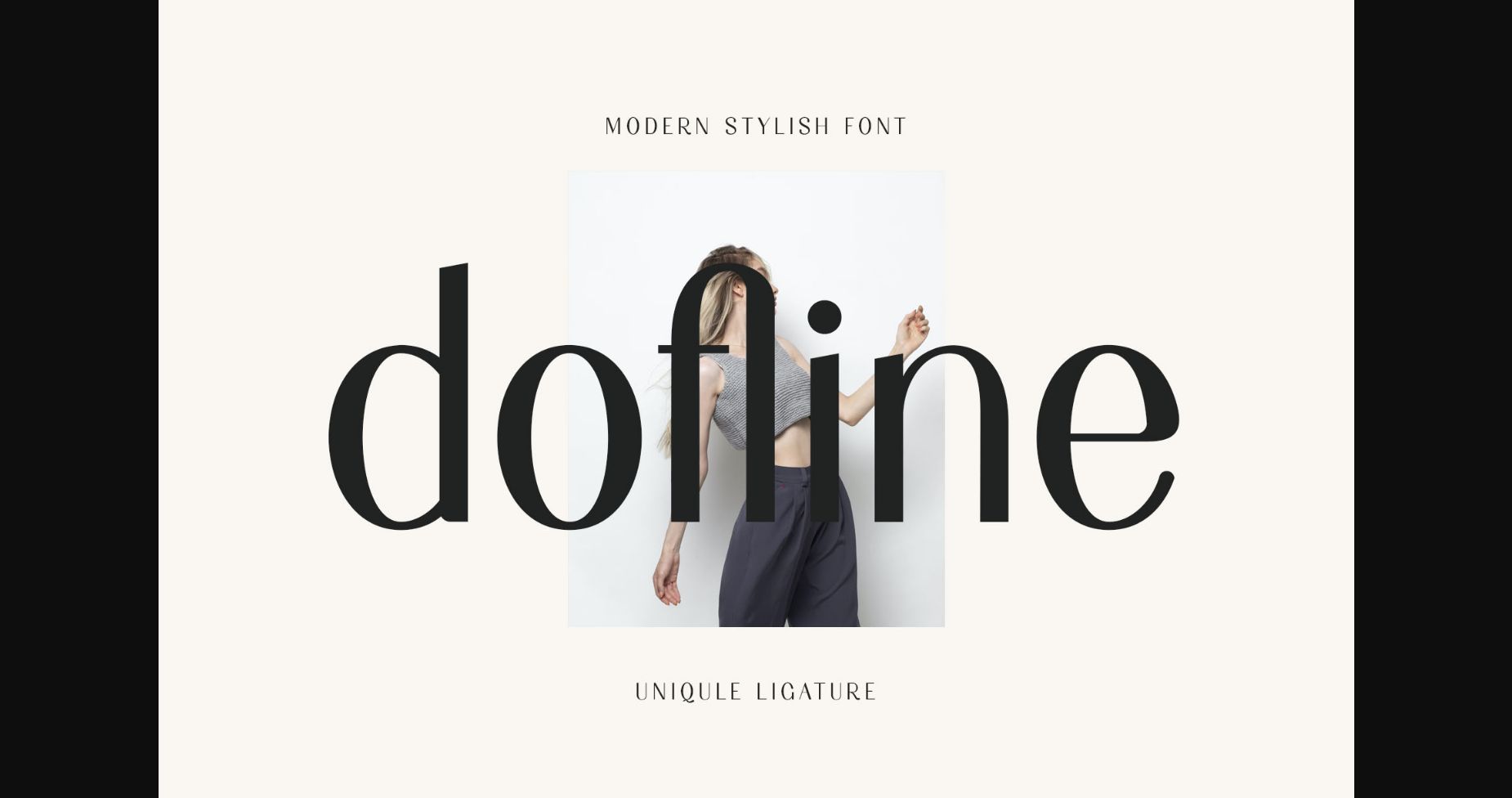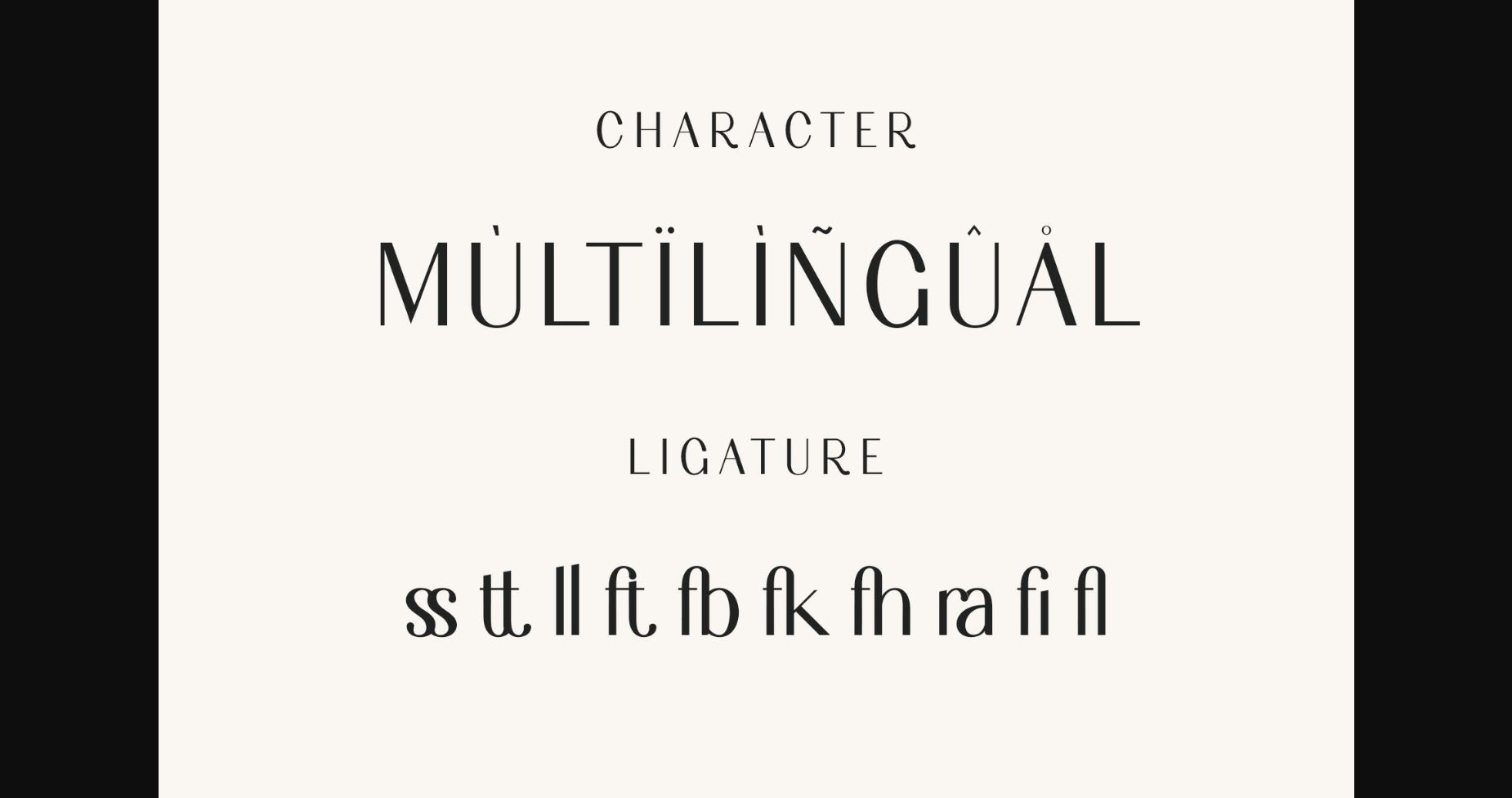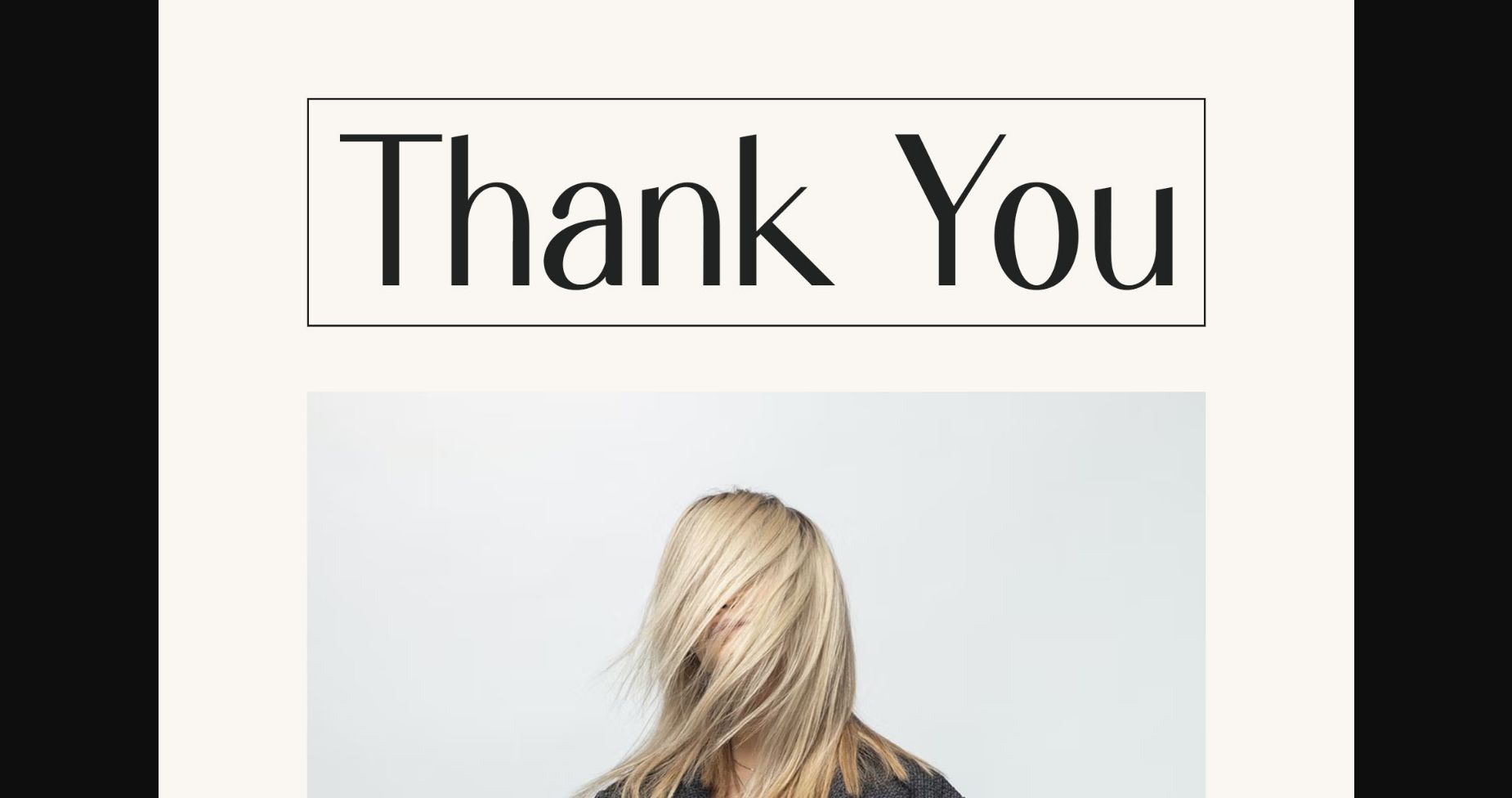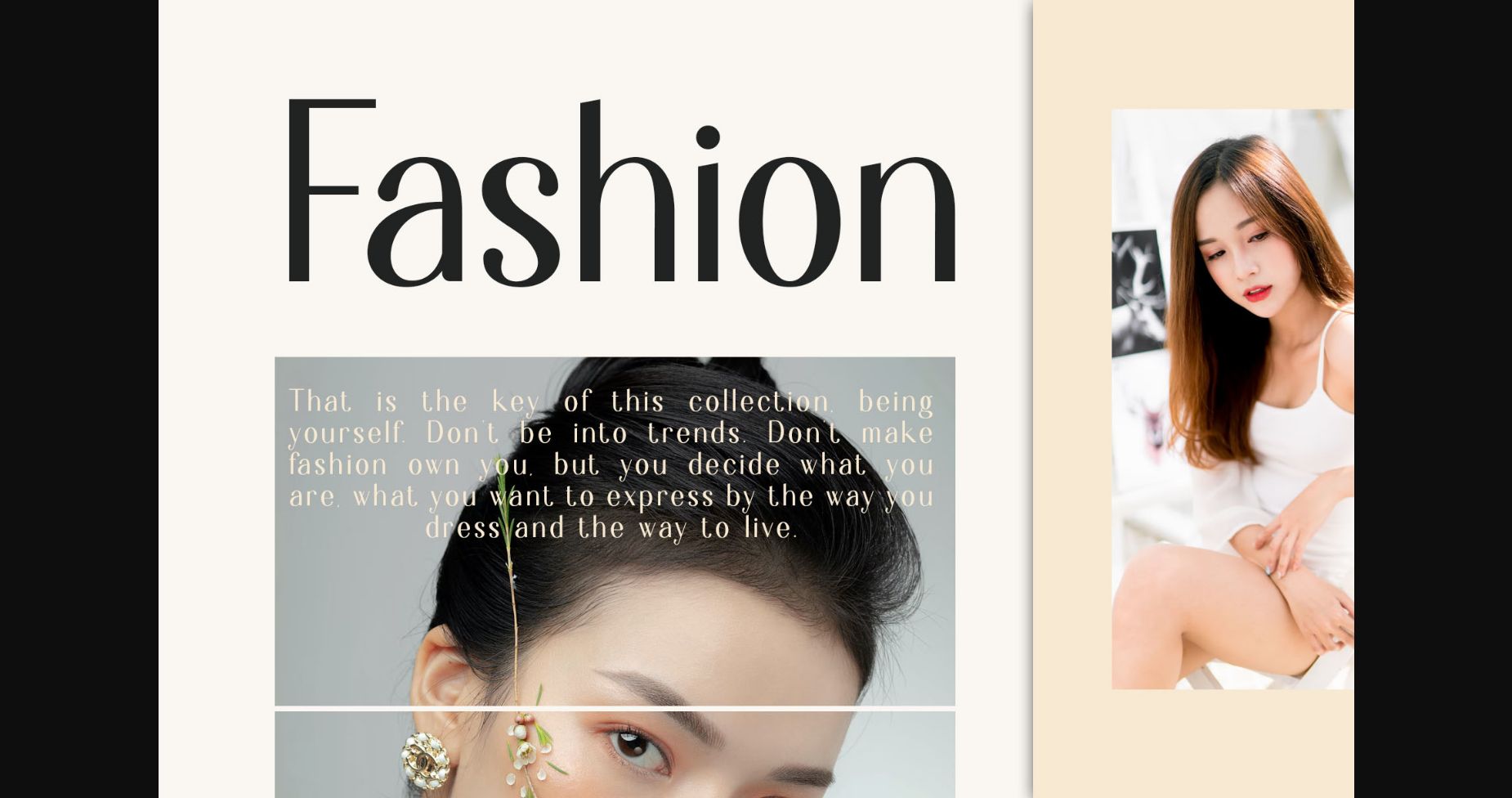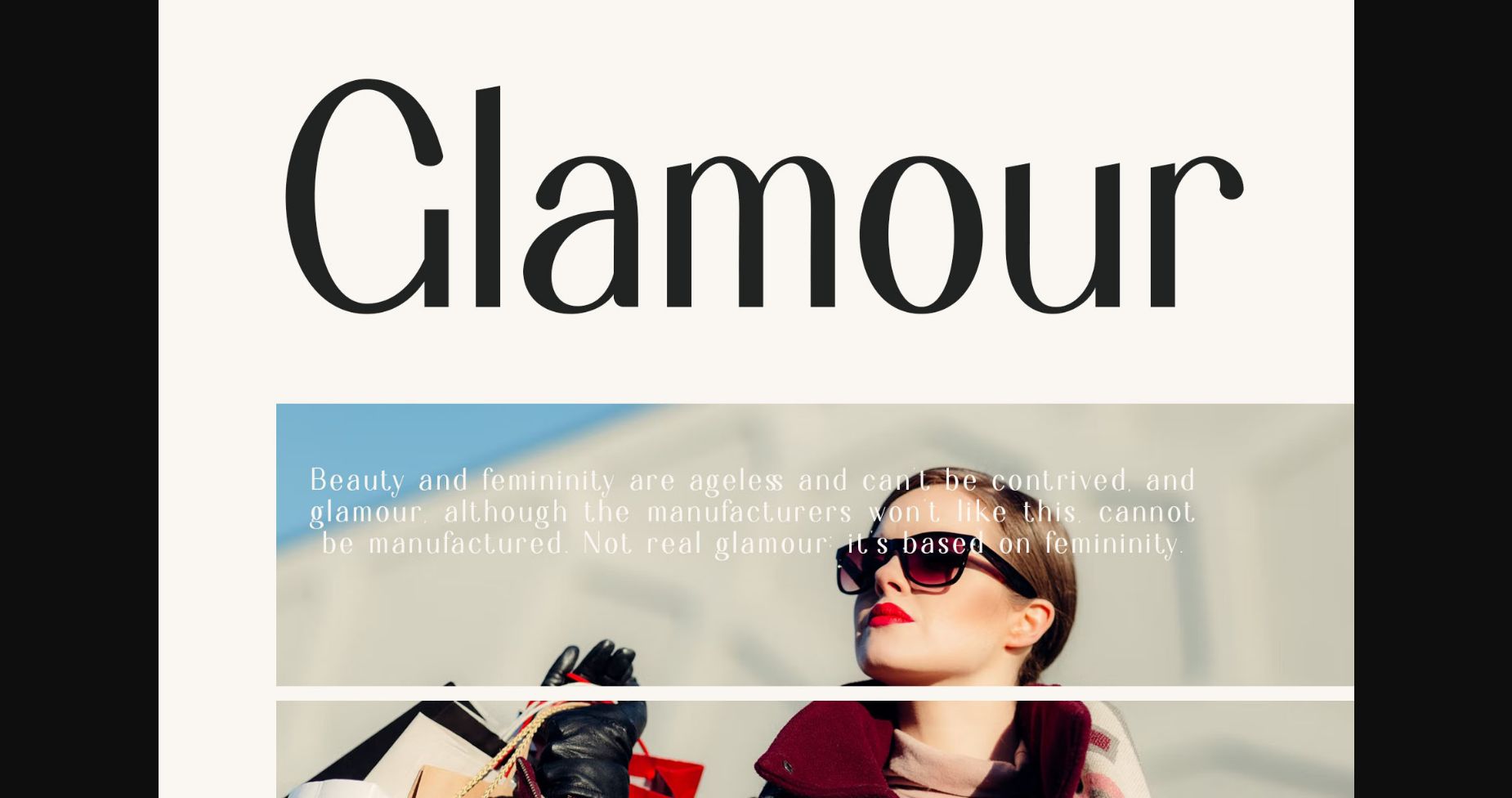
About Dofline Font
Dofline is an elegant and thin lettered sans serif font. Whatever the topic, this font will be a wonderful asset to your font library, as it has the potential to enhance any creation.